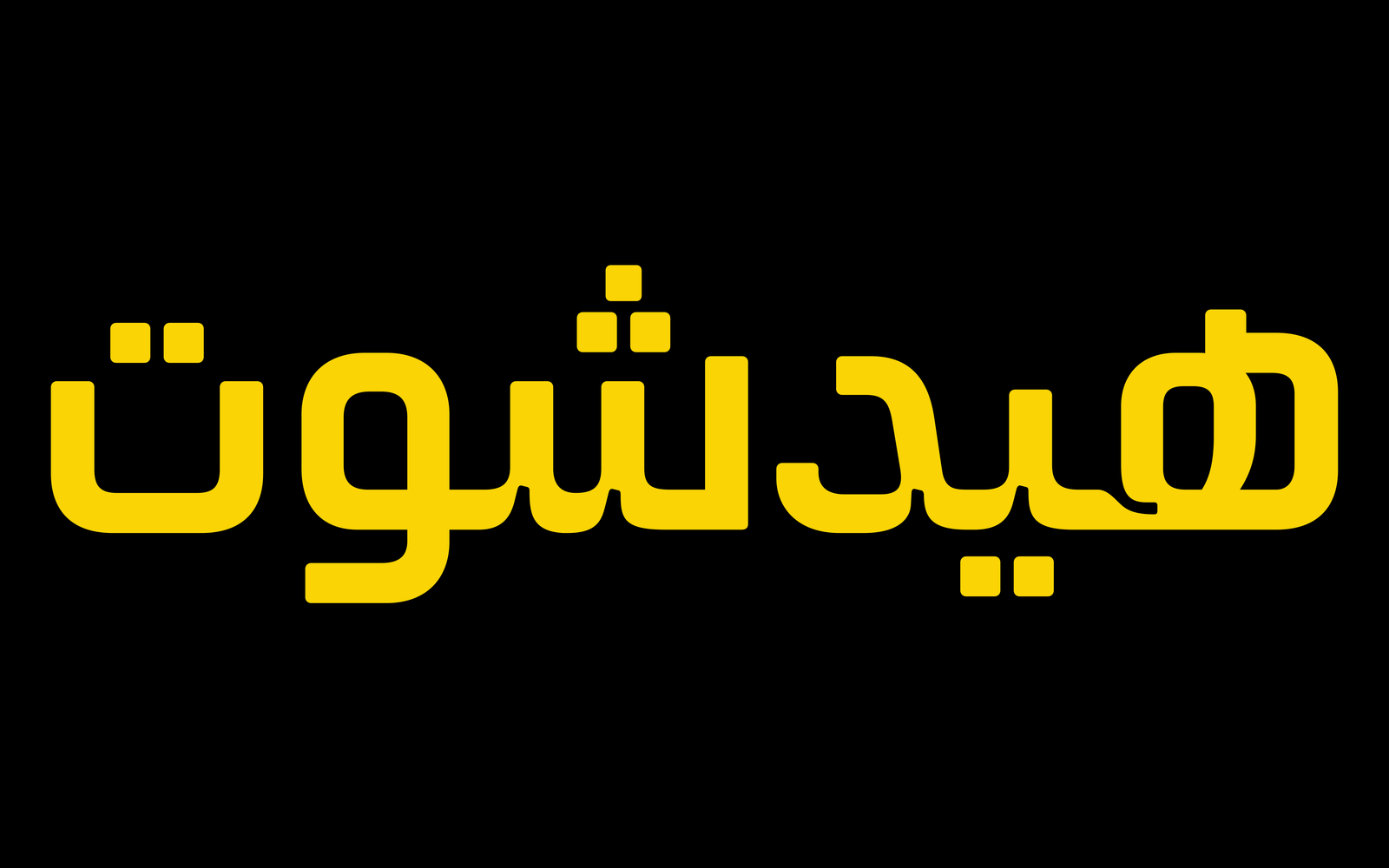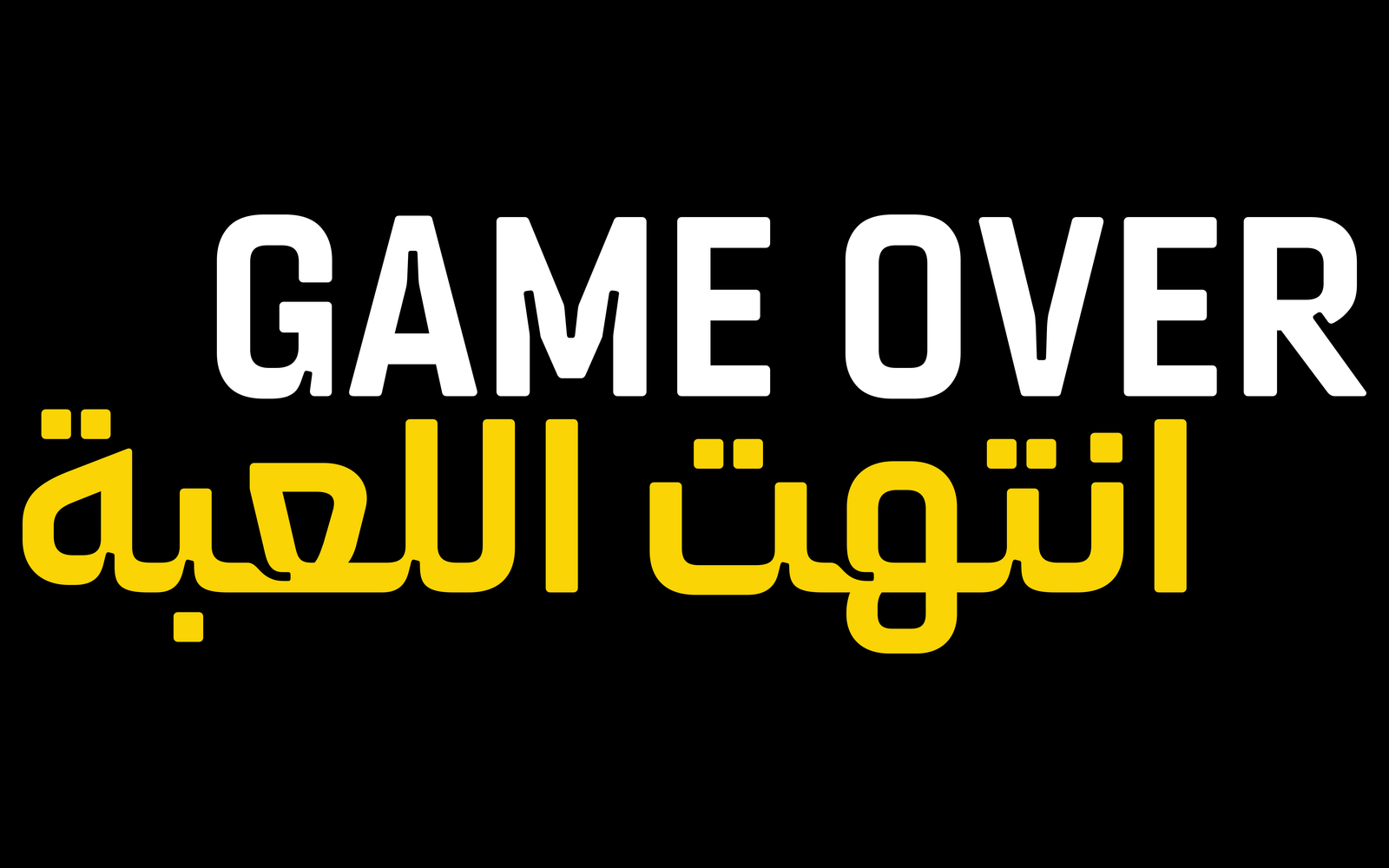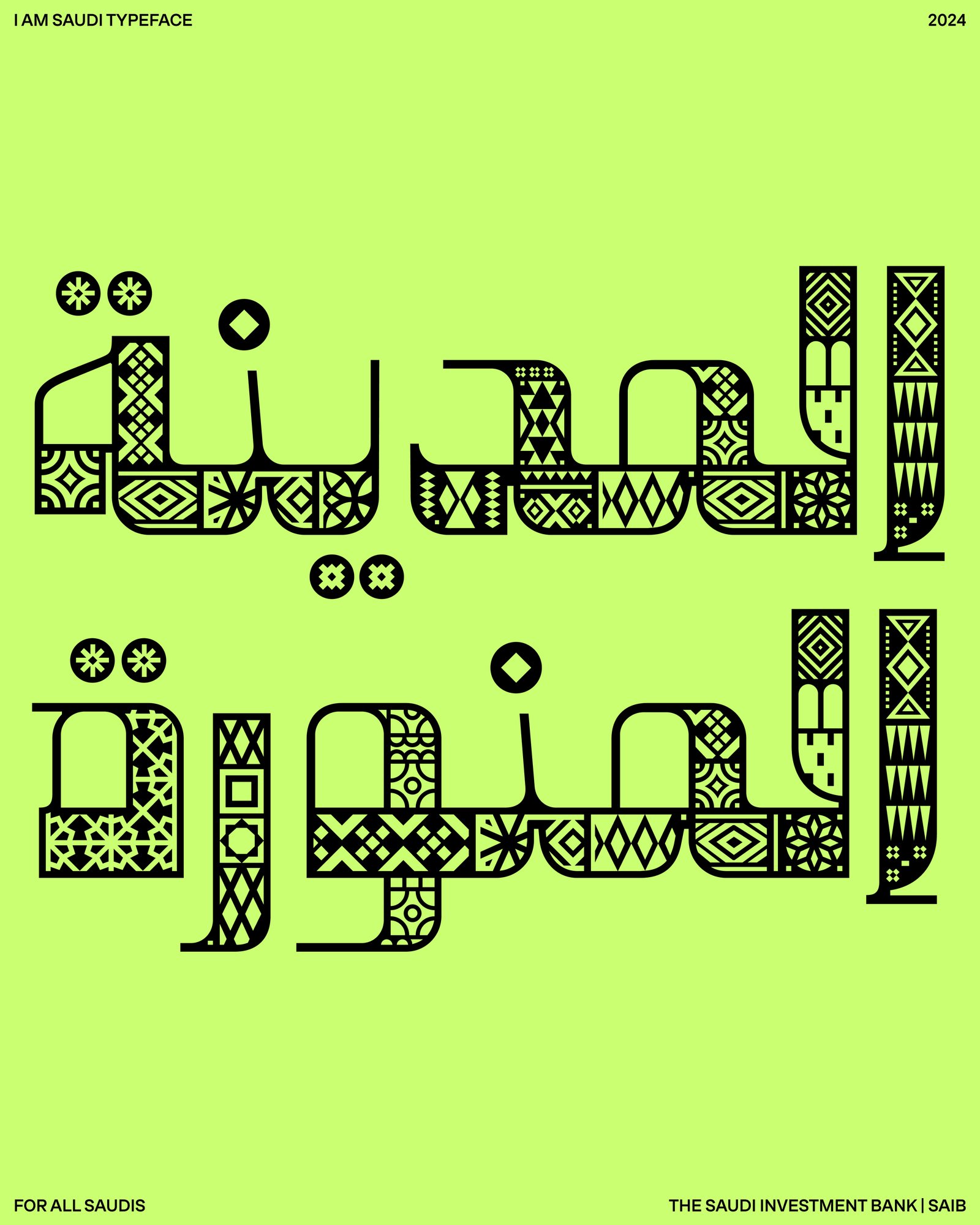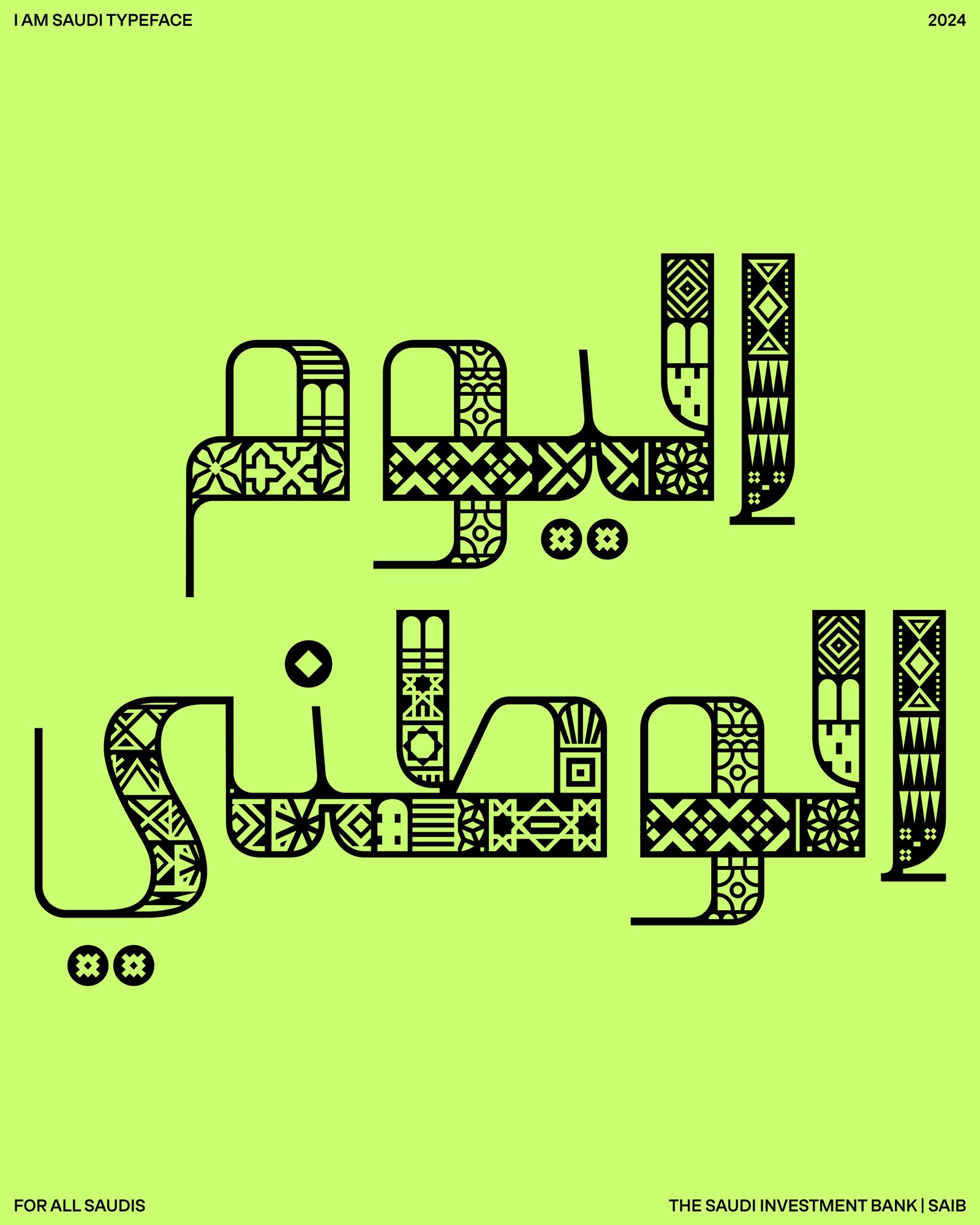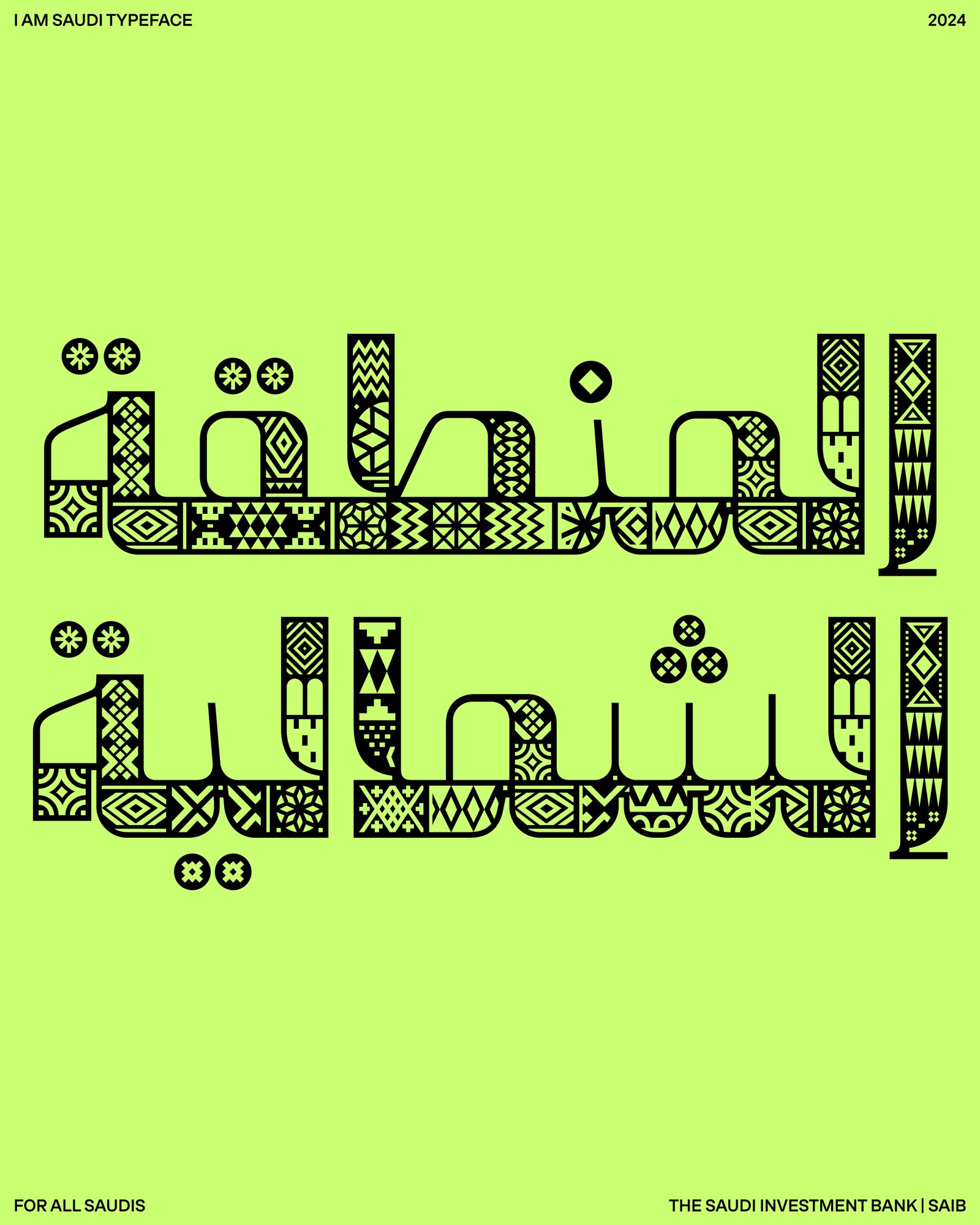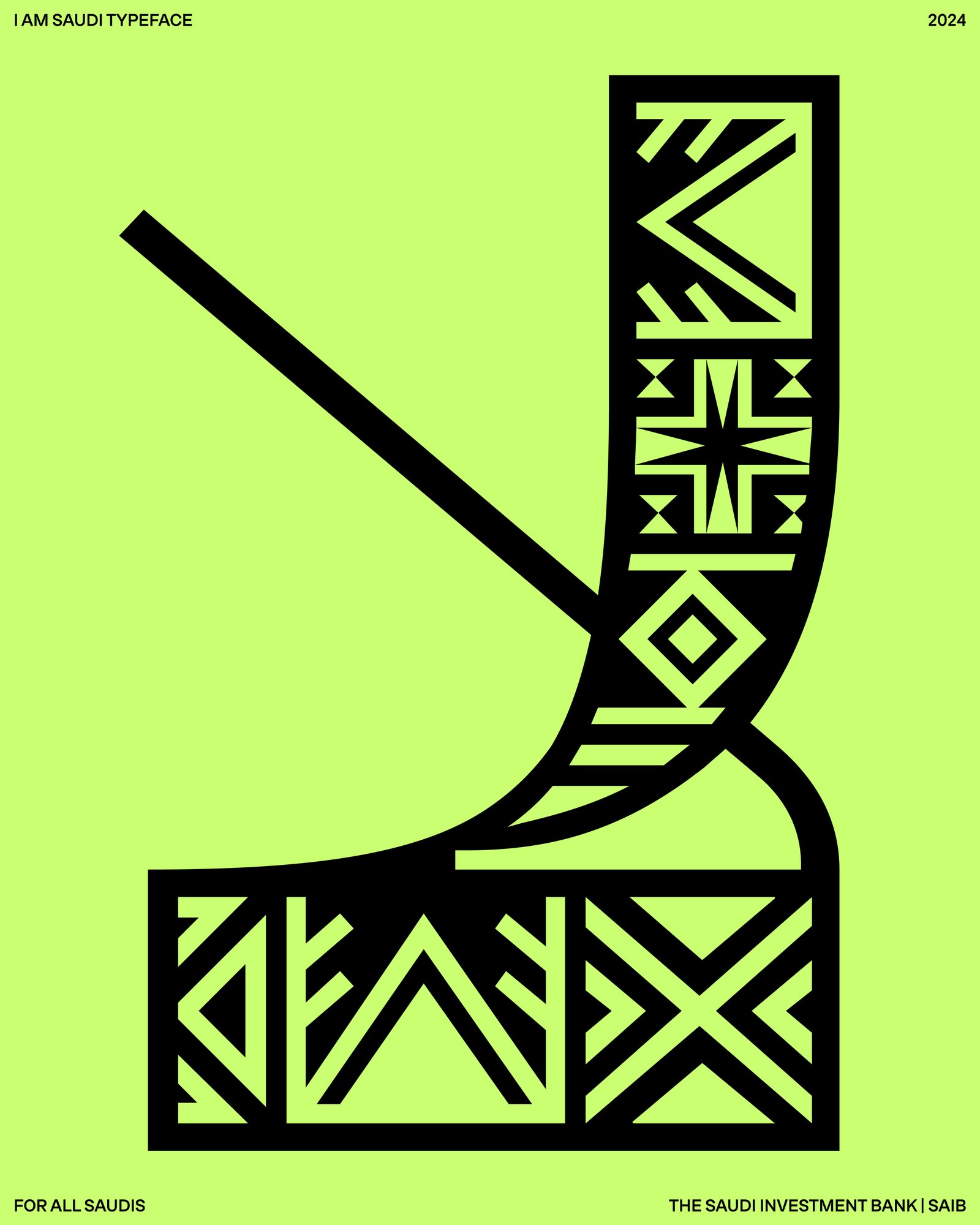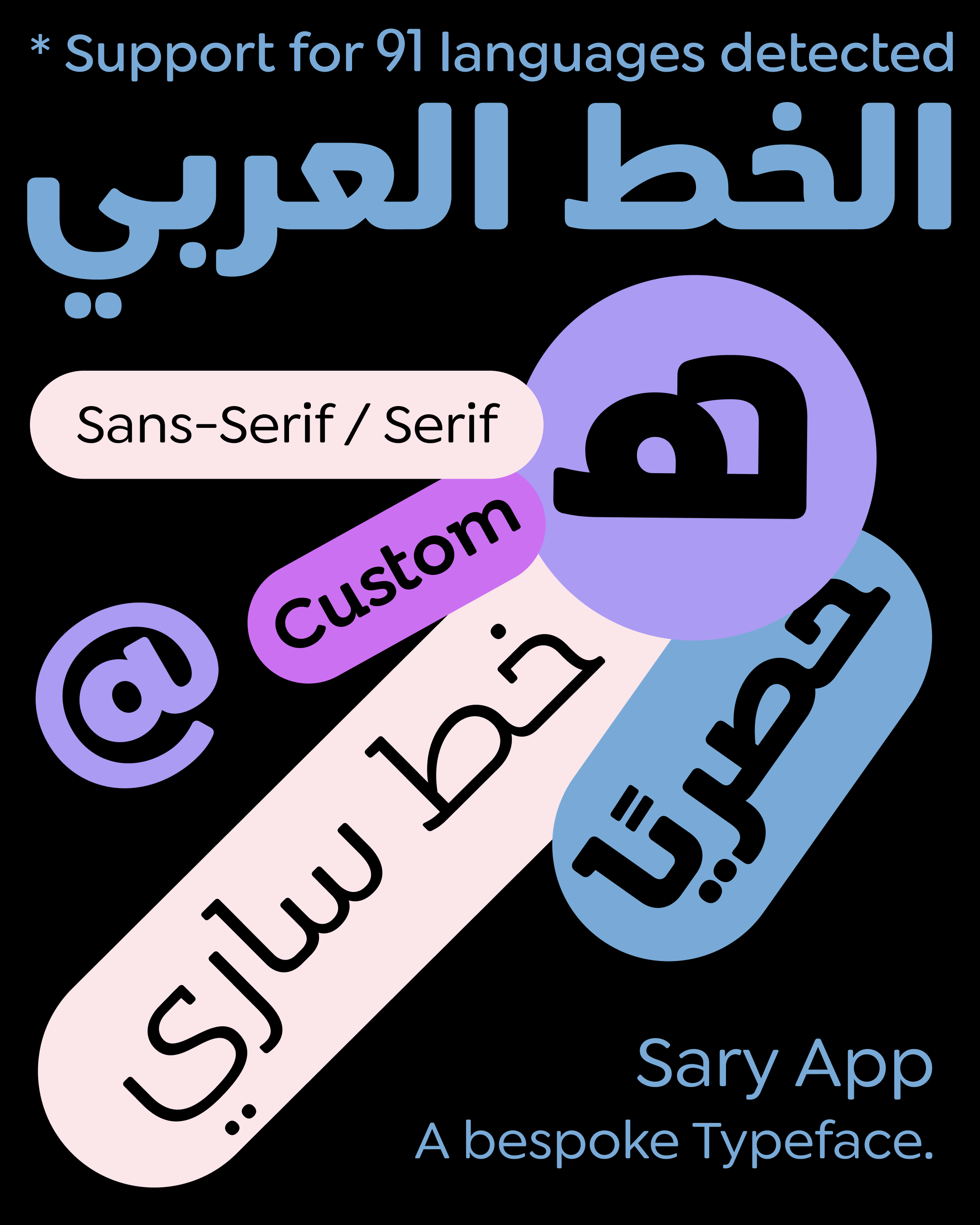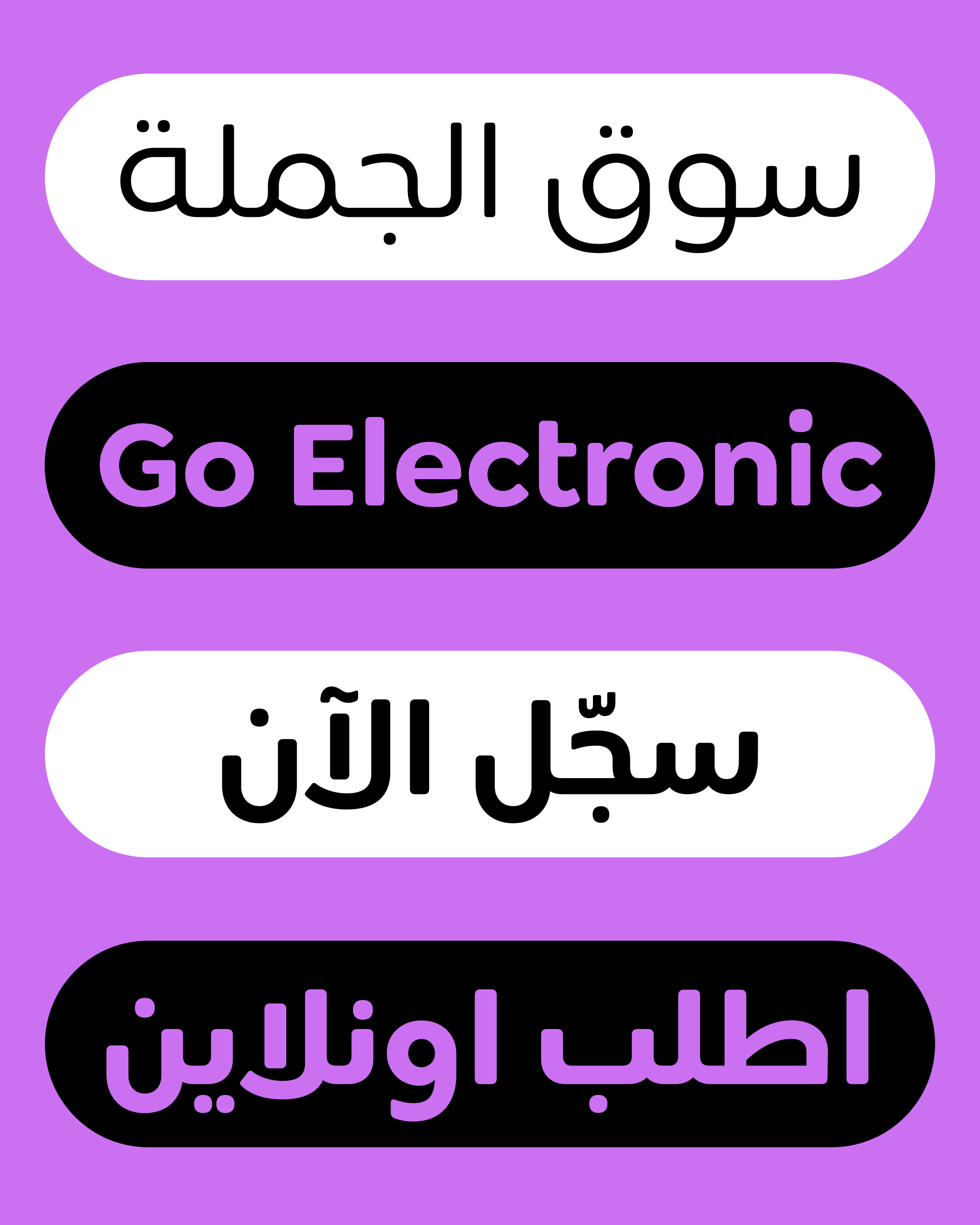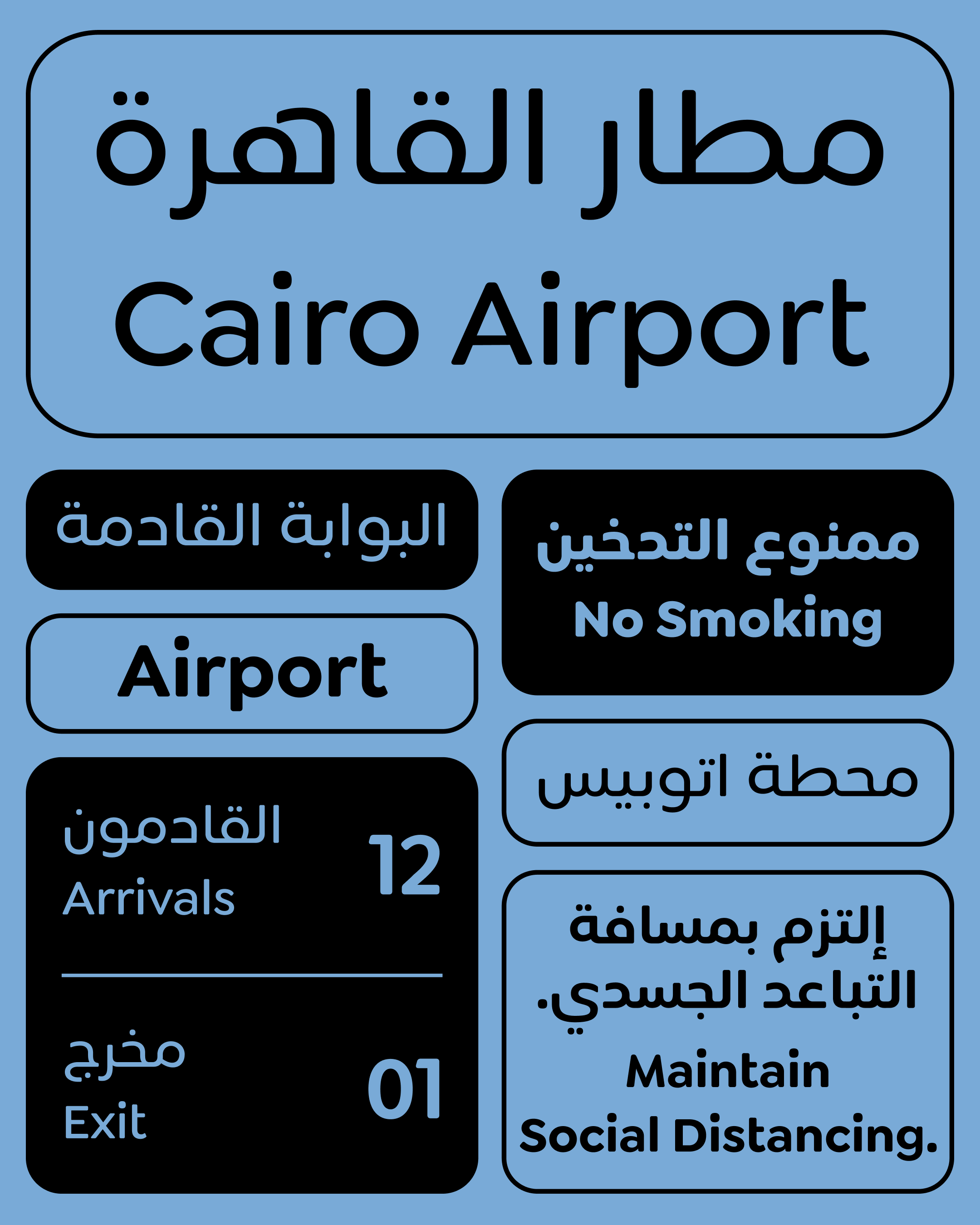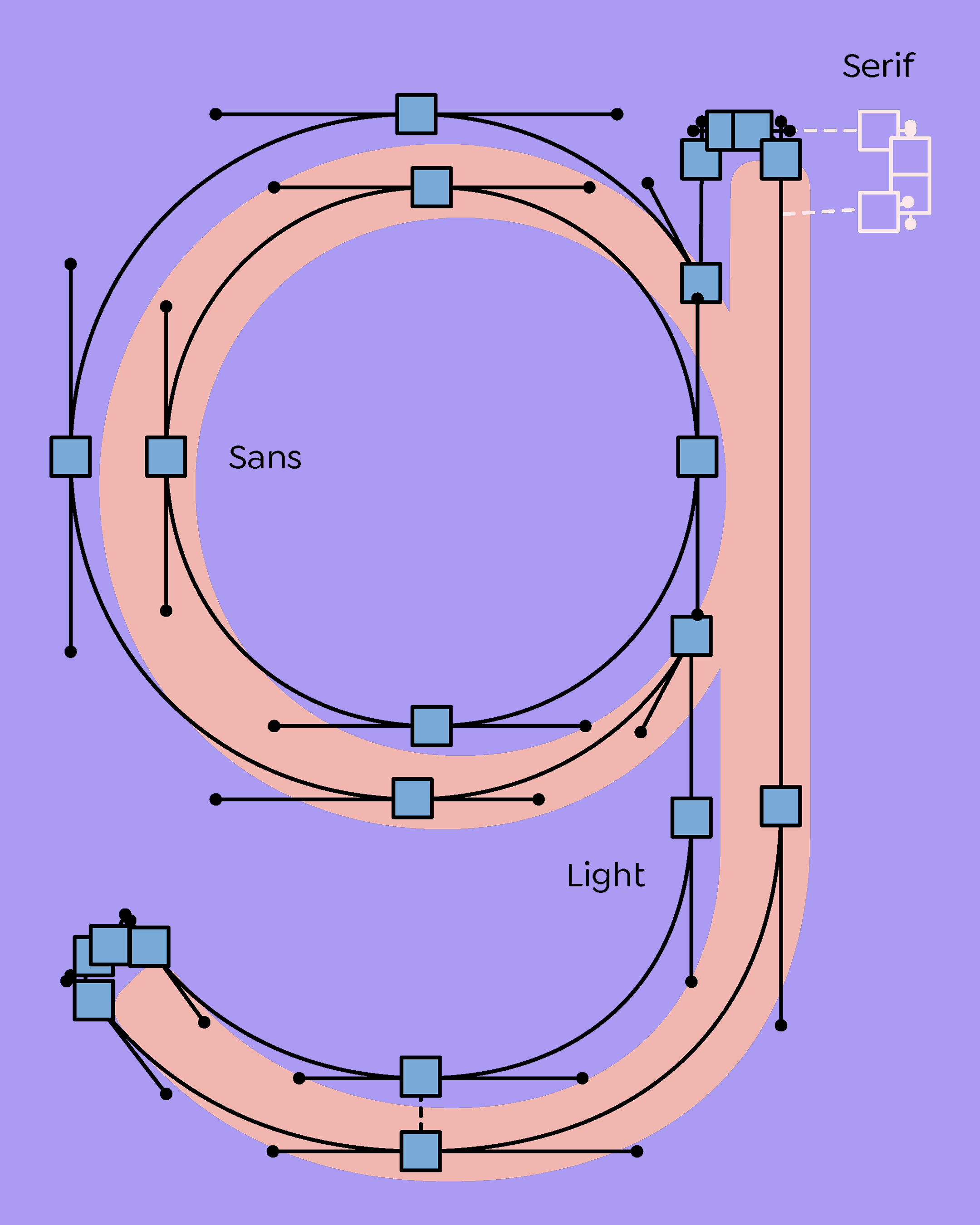
A custom typeface offers a tailored visual identity that distinguishes your brand, fostering recognition and recall. It conveys exclusivity, elevating your brand's perceived value and authenticity. By optimizing legibility and readability, it enhances communication across various mediums. The emotional resonance it creates establishes a deeper connection with your audience.
• Needs Assessment: We'll begin by understanding your specific requirements and goals for the custom typeface. What emotions or messages should it convey?
• Brand Alignment: The typeface will be designed to align seamlessly with your brand identity, ensuring it reflects your unique character.
• Sketch and Conceptualize: Our design team will sketch and conceptualize individual letterforms, exploring various styles and characteristics.
• Digitalization: Using industry-standard software, we'll digitize and refine the sketches, creating precise outlines and curves.
• Consistency: To ensure legibility and visual harmony, we'll maintain consistency in proportions, spacing, and stroke widths.
• Kerning and Hinting: Letter spacing (kerning) and detail optimization (hinting) will be fine-tuned for exceptional readability.
• Testing and Refinement: Continuous testing in real-world applications will identify and address any issues or areas for improvement.
• Comprehensive Character Set: We'll expand the typeface to include a comprehensive character set, encompassing letters, numbers, punctuation, and symbols.
• Client Collaboration: Throughout the process, your input and feedback will be integral, ensuring the final typeface meets your vision and requirements.
I am Saudi Typeface
A custom Arabic display typeface inspired by the cultural heritage and visual diversity of Saudi Arabia’s regions.
WW3 Arabic Typeface
A custom Arabic typeface designed for the World War 3 game identity and visual communication.
Sary App Typeface
A custom bilingual Arabic and Latin typeface system designed for Sary’s brand and digital experience.